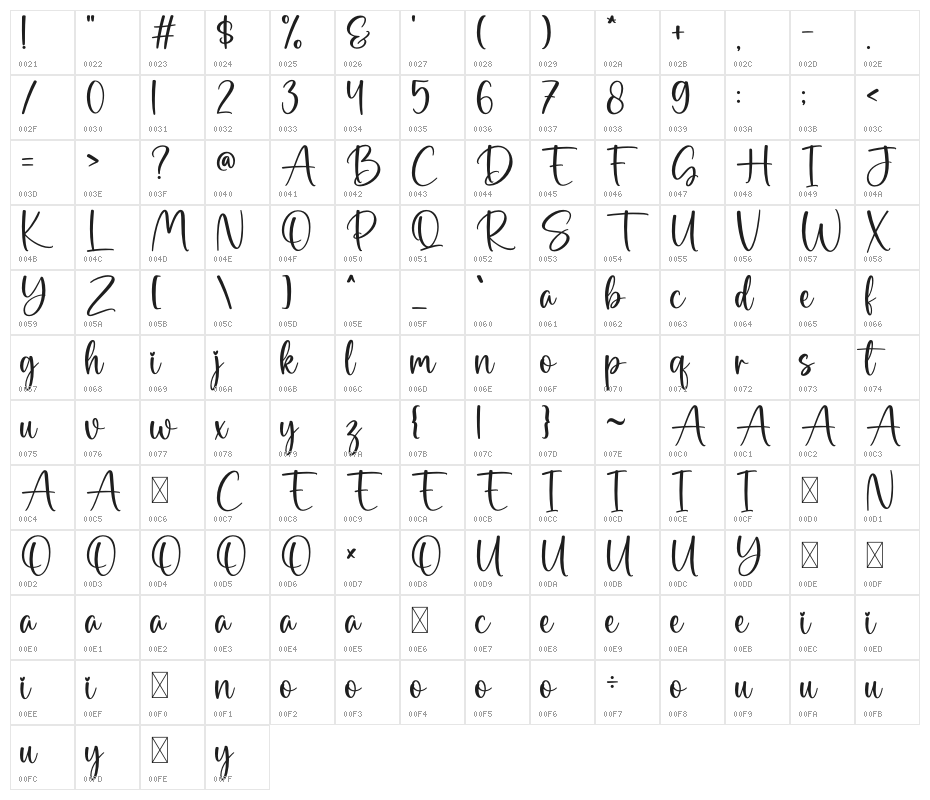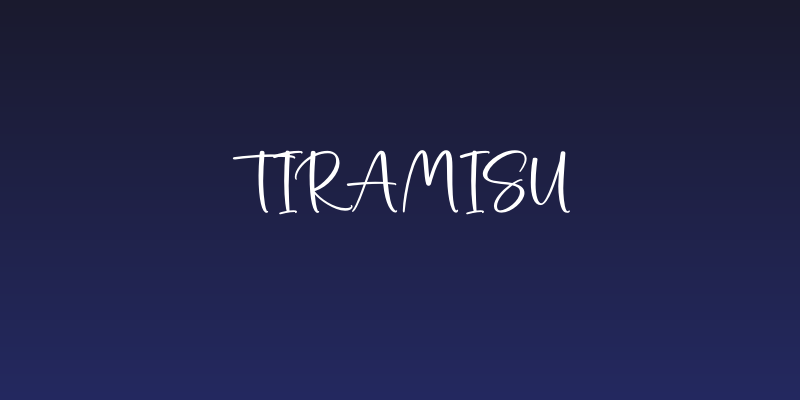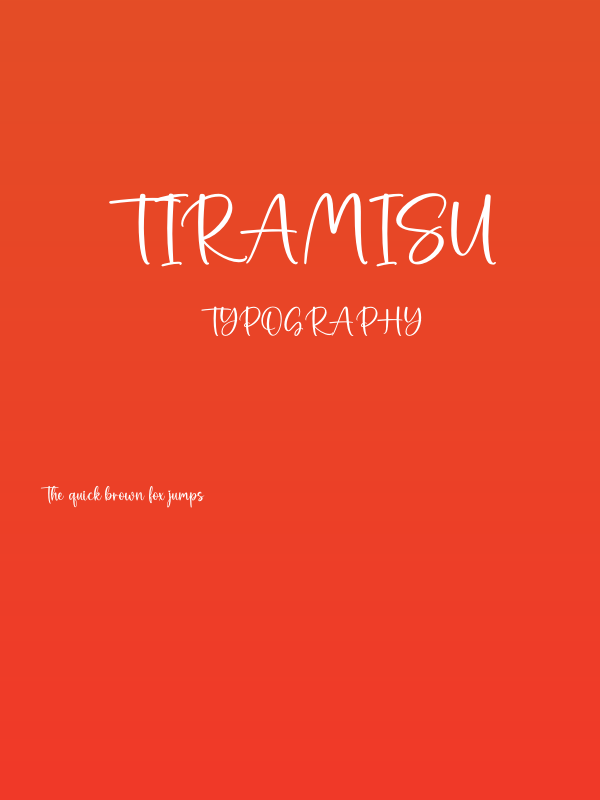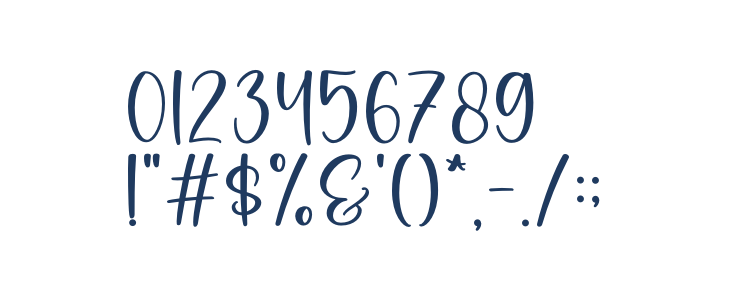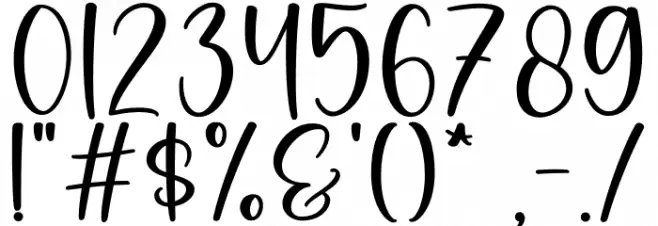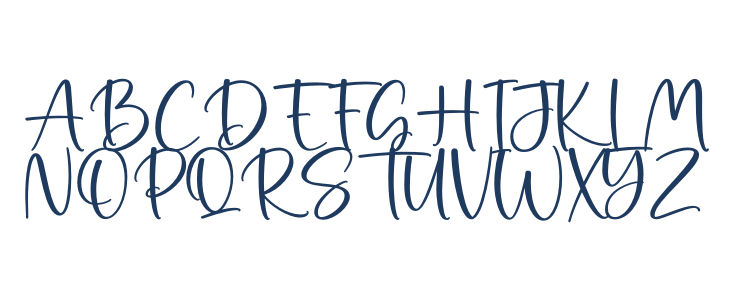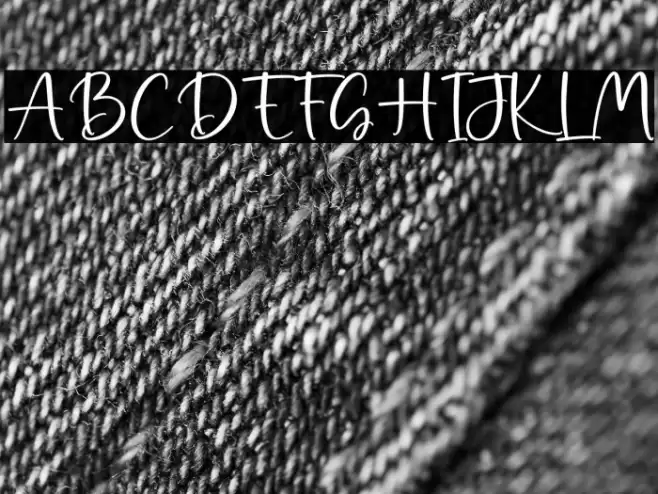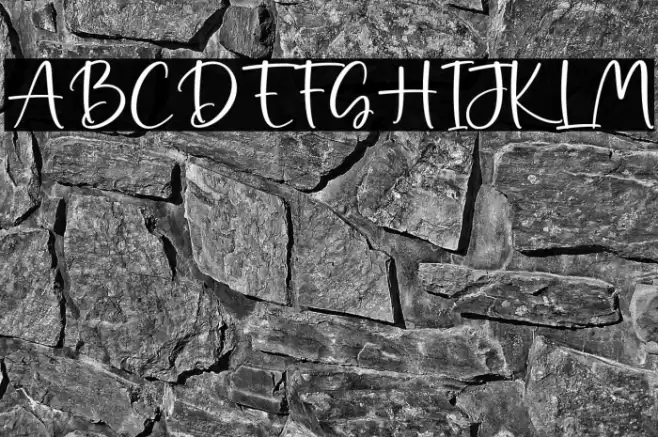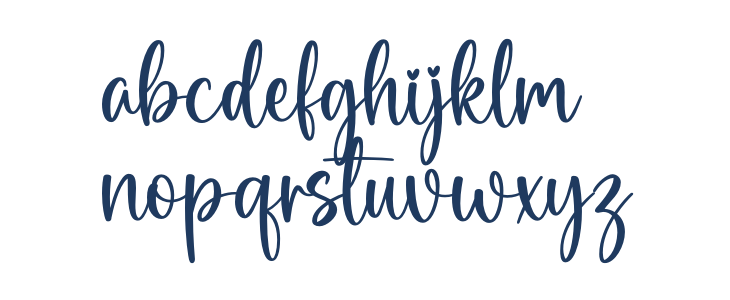
Tiramisu Font
Tiramisu Description
A handwritten, cursive script font with a casual and playful style, featuring smooth, flowing lines and varying stroke widths.
| Use Case | Invitations, Greeting Cards, Branding, Logos, Personal Projects |